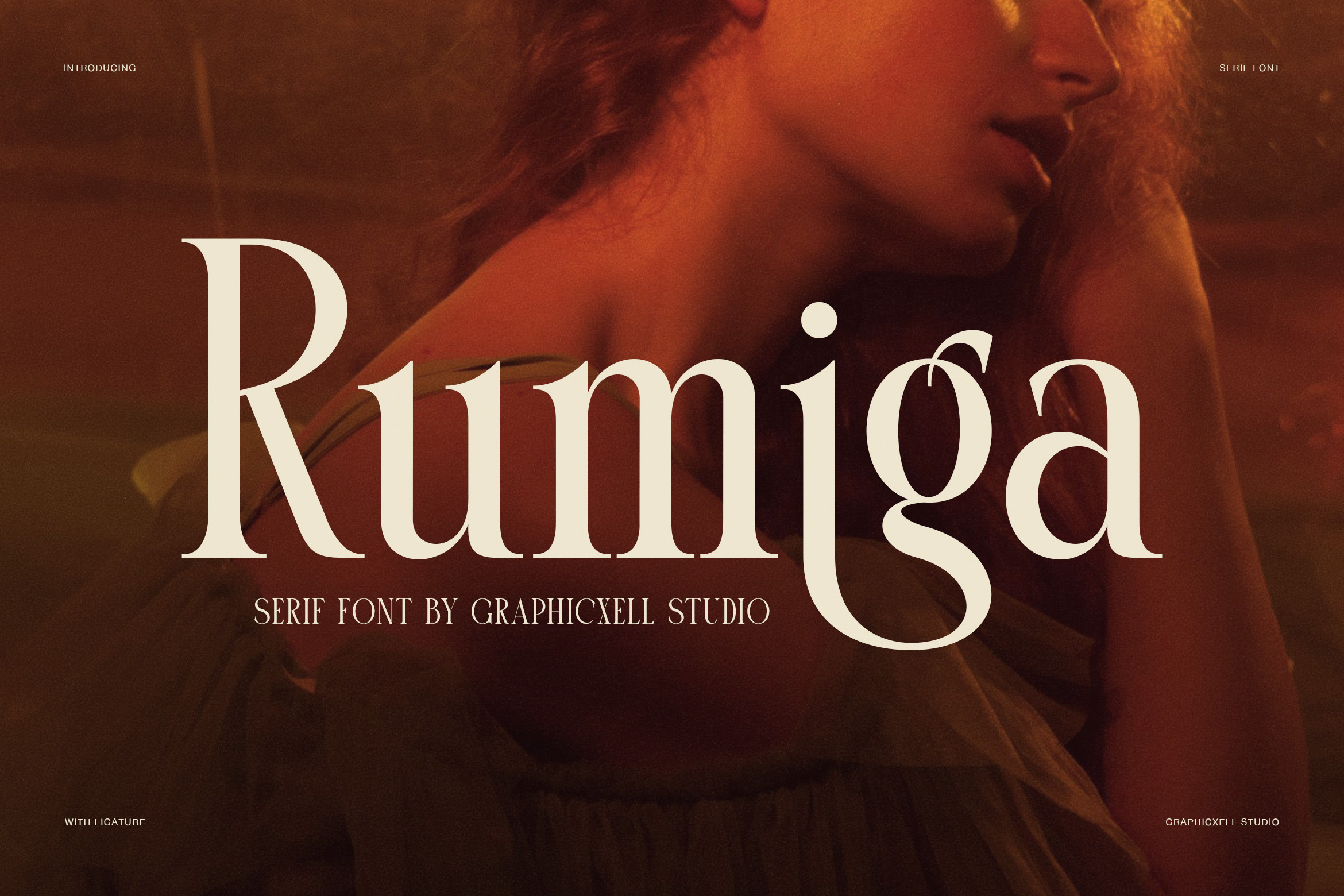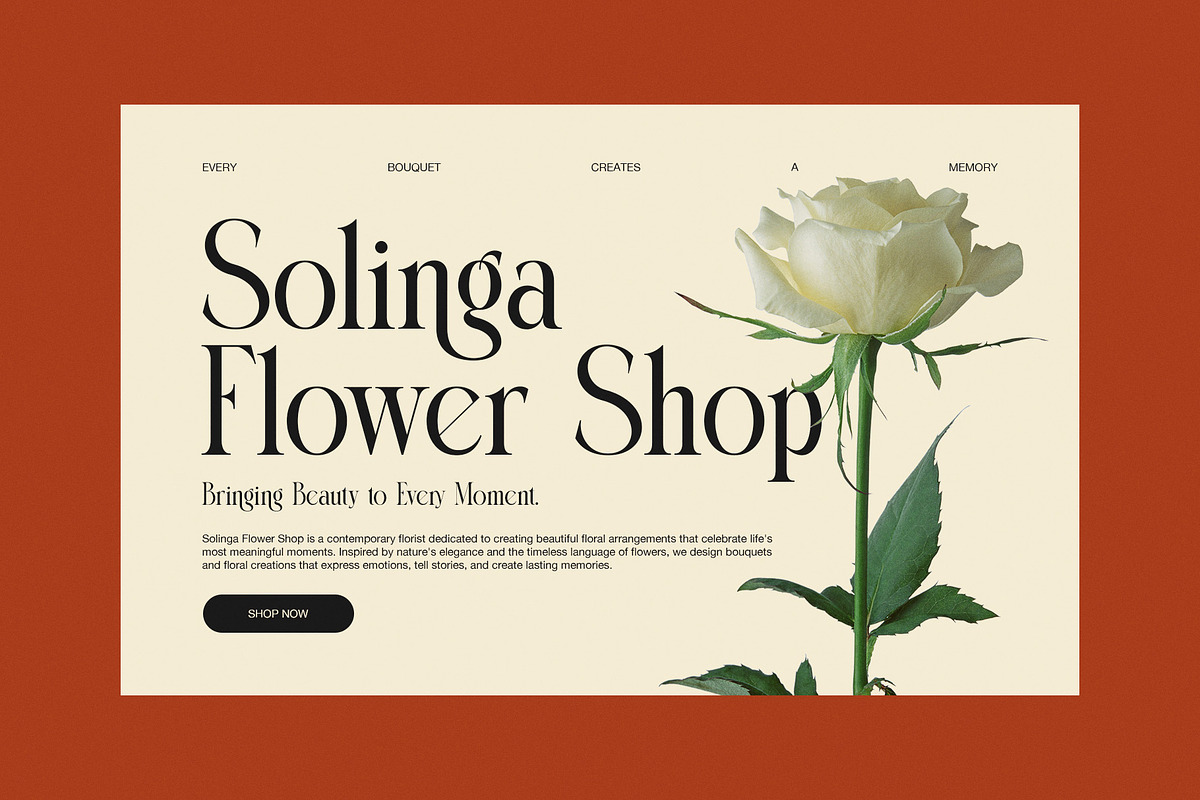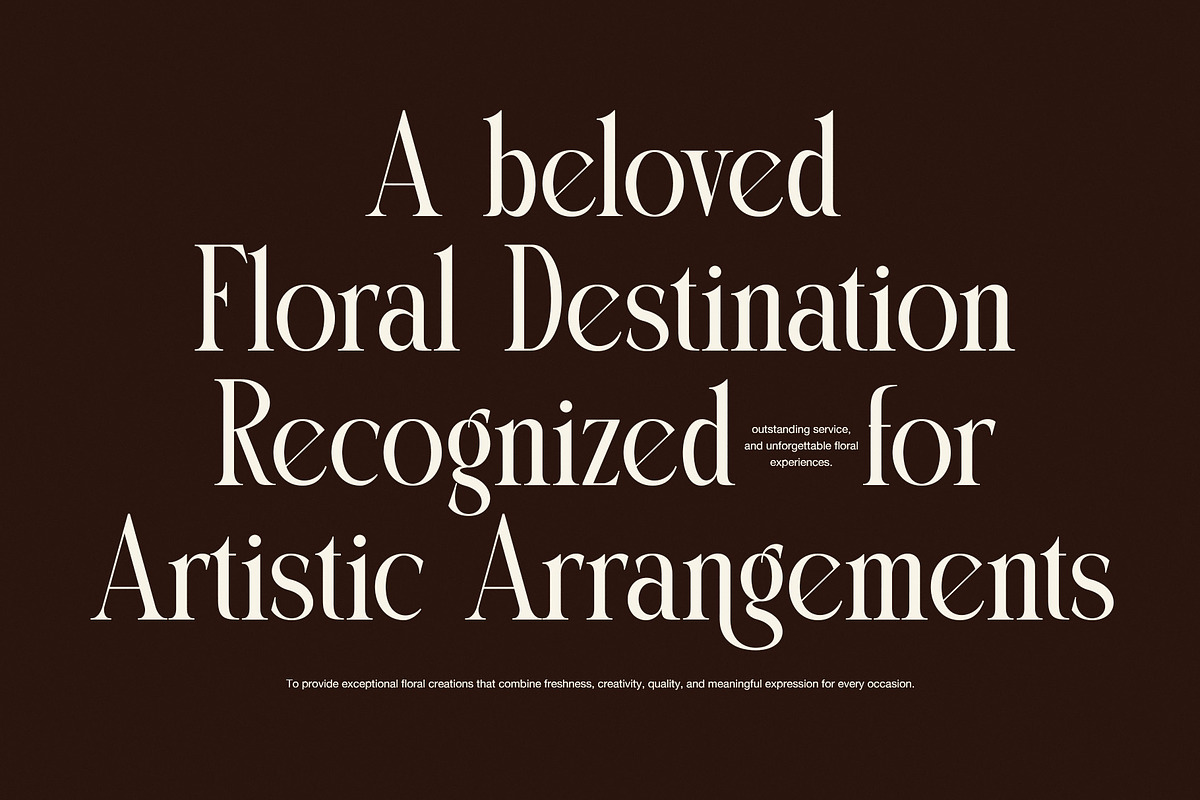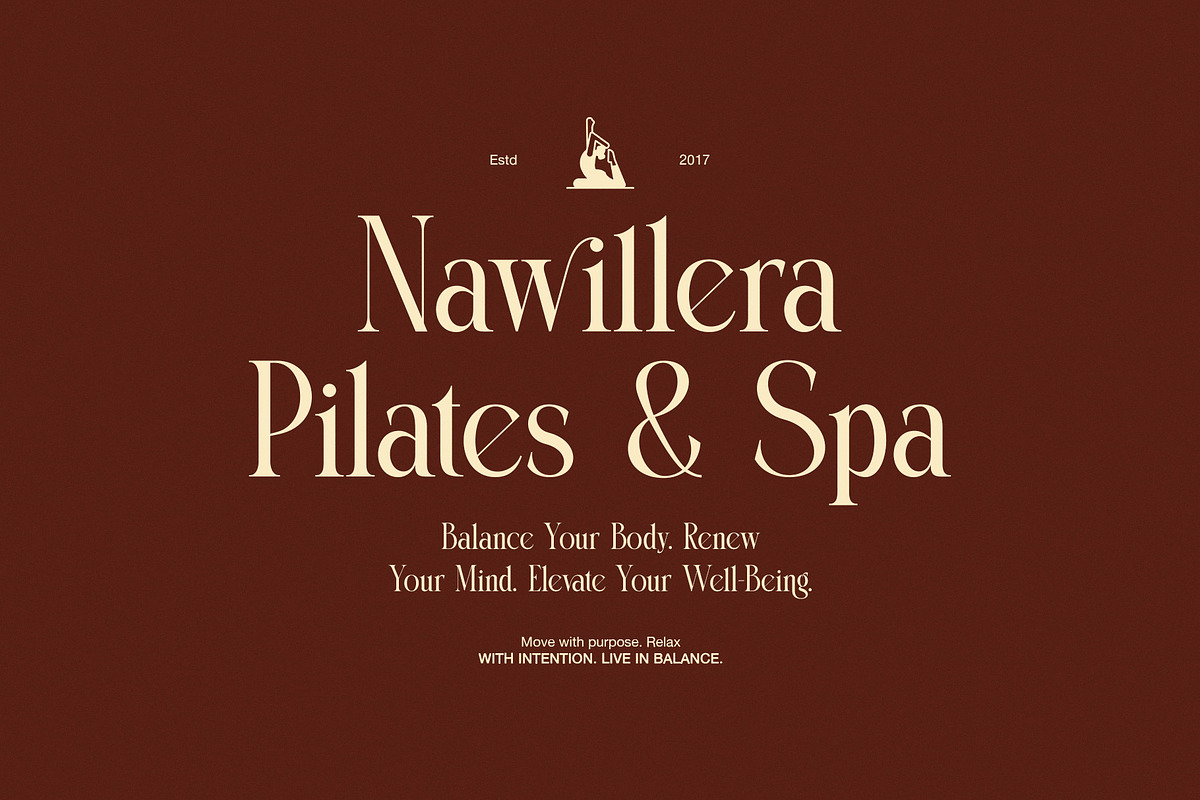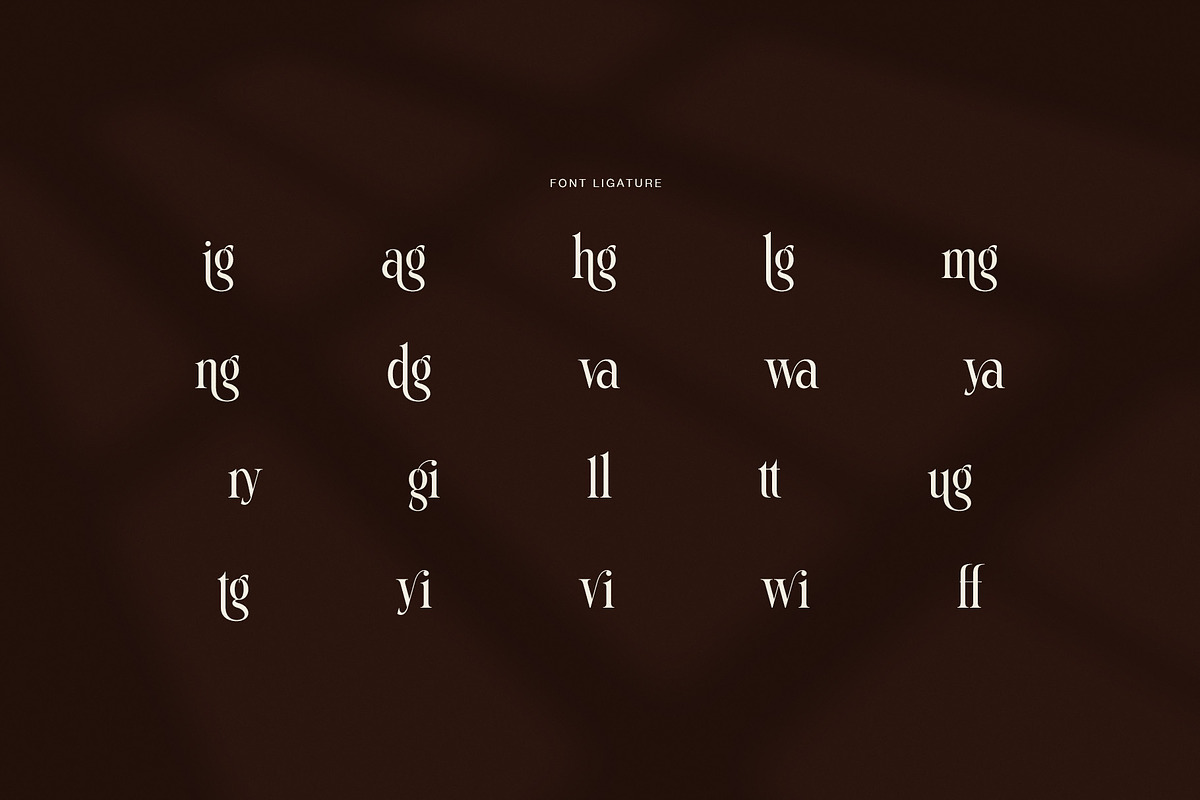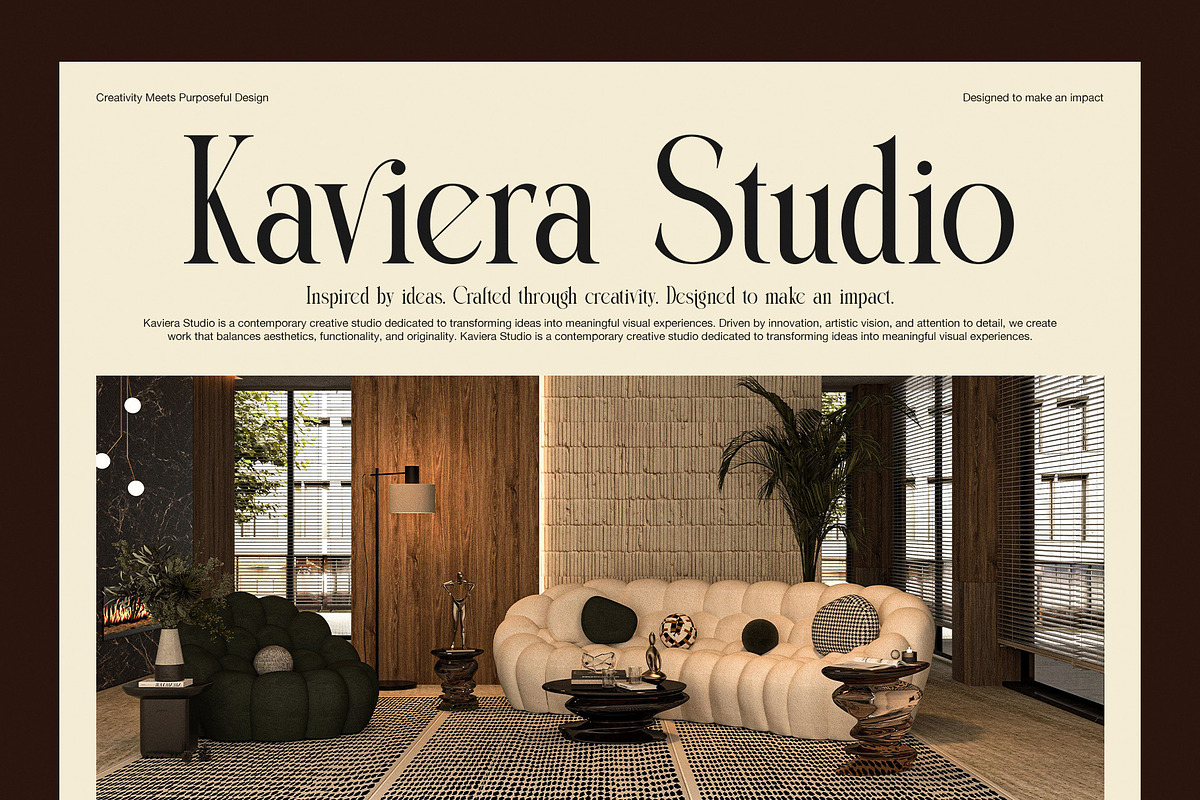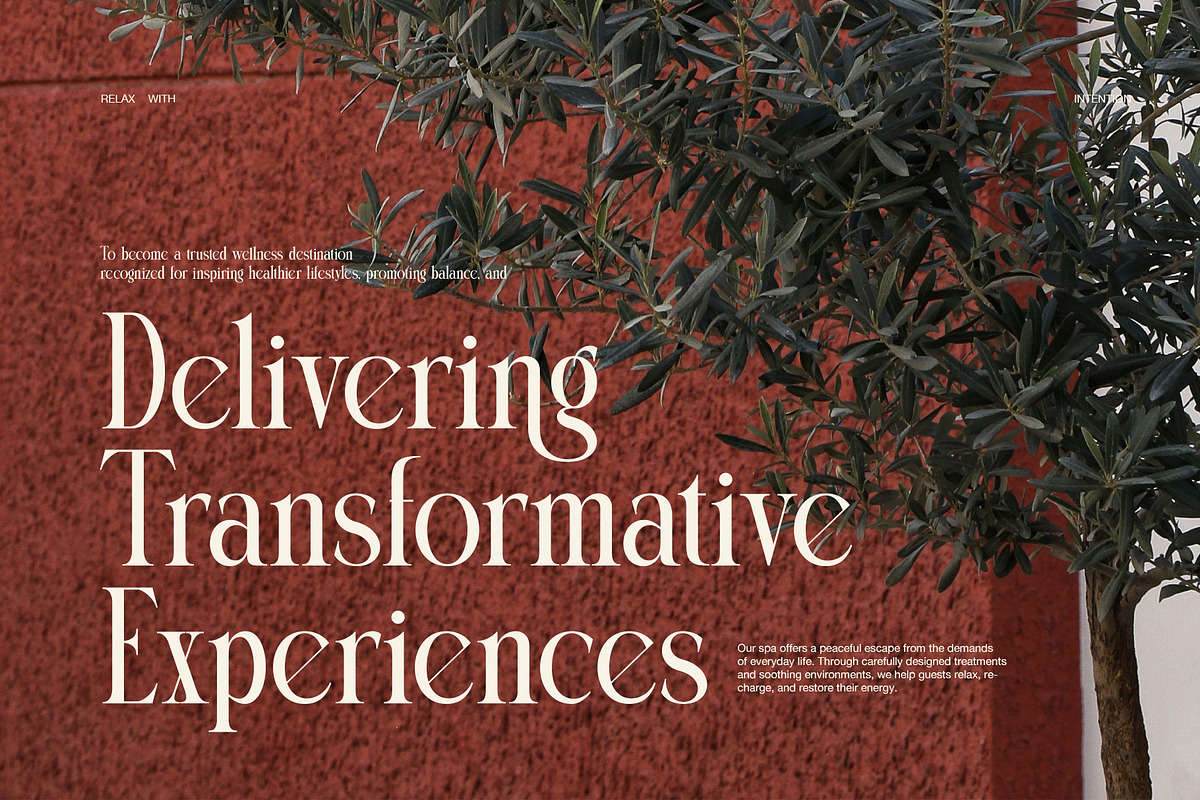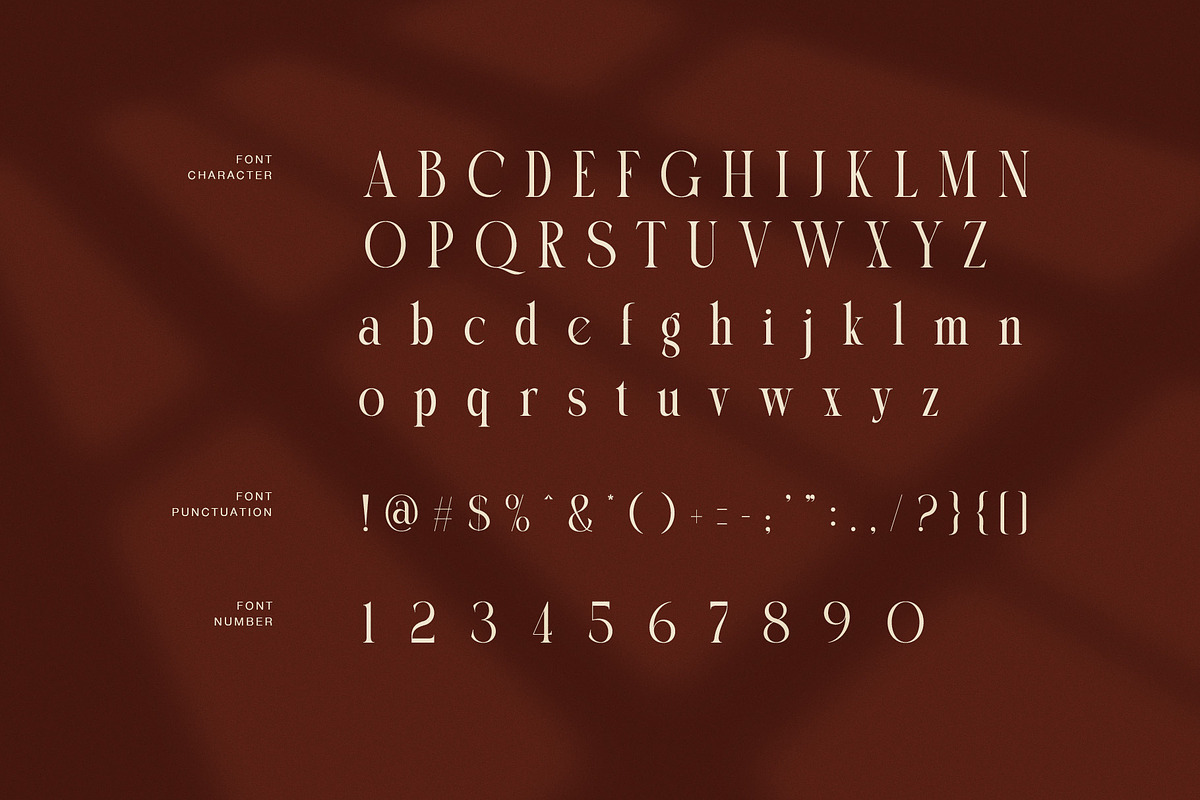
Rumiga Elegant Serif Font
Meet Rumiga, a refined high contrast serif font designed for stylish brands, creative projects, and elegant visual identities. Its sharp contrast between thick stems and fine hairlines gives every letter a graceful and polished appearance. At the same time, its smooth curves add a soft and modern touch.
Rumiga has a strong editorial feel, making it ideal for designs that need a confident yet refined look. Moreover, its tall letterforms create a beautiful presence in large headlines, logos, and display text.
Designed for Luxury Branding
This high contrast serif font works especially well for premium projects. Its elegant shapes can bring a fashionable feel to both simple and detailed layouts.
Use Rumiga for:
Fashion and clothing brands
Beauty and skincare identities
Luxury logos and branding
Floral and flower shop designs
Wellness and spa businesses
Editorial and magazine layouts
Interior design studios
Jewelry and boutique branding
Product packaging and labels
Wedding invitations and stationery
Furthermore, Rumiga can create a strong visual identity without relying on heavy decoration. Its refined proportions allow the typography to remain clean, while the fine details give each word a distinctive character.
Versatile Display Typeface
Rumiga includes uppercase letters, lowercase letters, numbers, punctuation, and ligatures. Therefore, it can adapt to many creative applications while keeping its elegant visual style.
Use it for a bold fashion headline, a refined boutique logo, a luxury package, or an editorial cover. In addition, Rumiga pairs nicely with simple sans serif fonts for supporting text and smaller details.
Ultimately, Rumiga brings high contrast, graceful curves, and stylish ligatures together in one sophisticated serif typeface. It is a strong choice for designers who want their typography to feel polished, fashionable, and memorable.